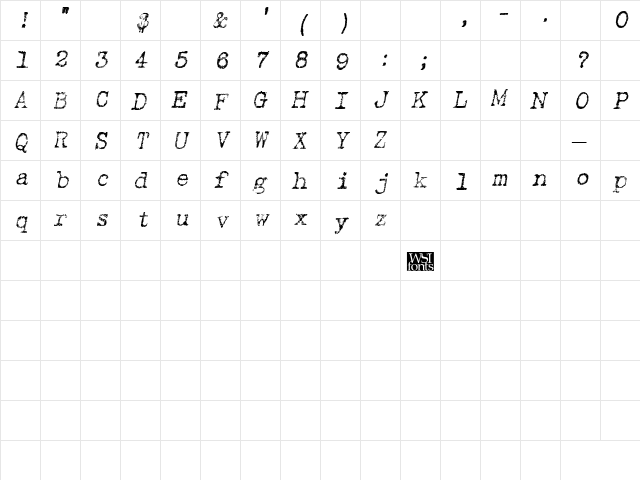
TypewriterRough Italic Font Preview
TypewriterRough Italic
TypewriterRough Italic Font Details
Design Context for TypewriterRough Typeface
TypewriterRough embraces imperfection — its rough, textured character adds raw authenticity to designs that want to feel lived-in and unconventional. The dynamic lean of this cut emphasises speed and emphasis in any layout.
A strong fit for alternative music projects, graffiti-adjacent design, and anything that deliberately resists polish.
Pro Tip: Use TypewriterRough at larger sizes where the texture and irregularity of each letterform can be clearly seen — it loses its character at small sizes.